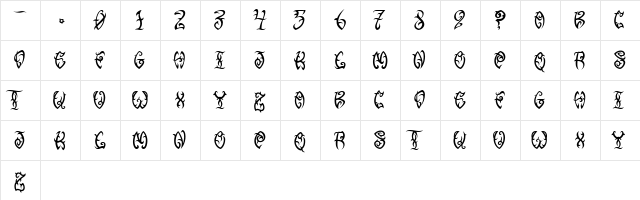
VTC-TribalThreeFree Regular
| Designer | WolfBainx - Larry E. Yerkes,Vigilante Typeface Corporation. |
Design Context for VTC-TribalThreeFree Typeface
VTC-TribalThreeFree is a composed and adaptable typeface that performs quietly and consistently across a wide range of design contexts.